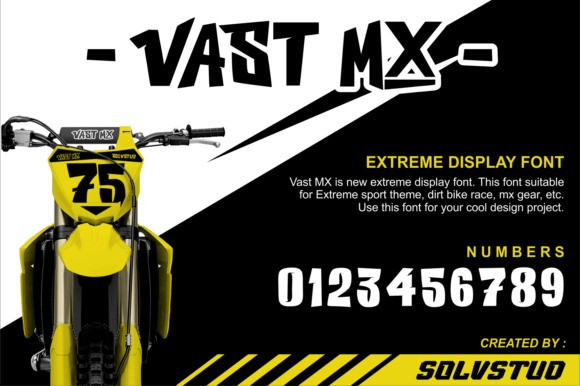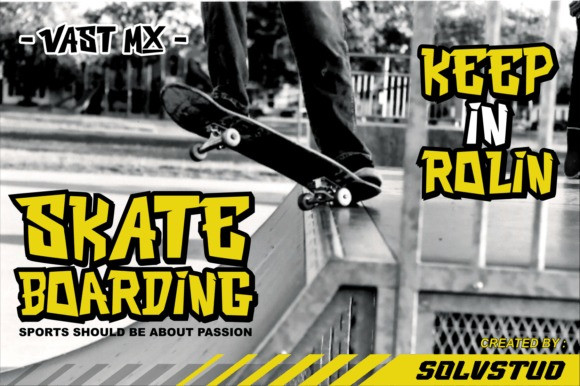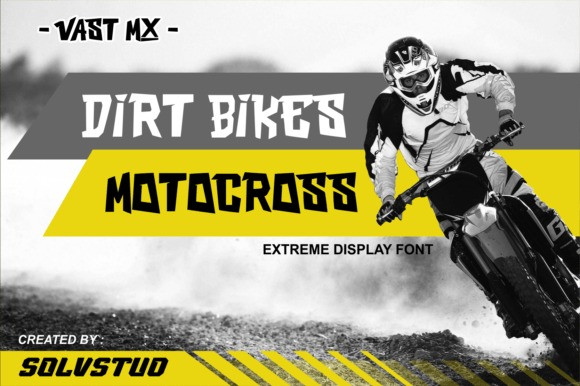
Vast Mx Font
Vast MX is a cool and modern display font. Incredibly versatile, this font fits a wide pool of designs, elevating them to the highest levels. Add this font to your favorite creative ideas and notice how it makes them come alive!